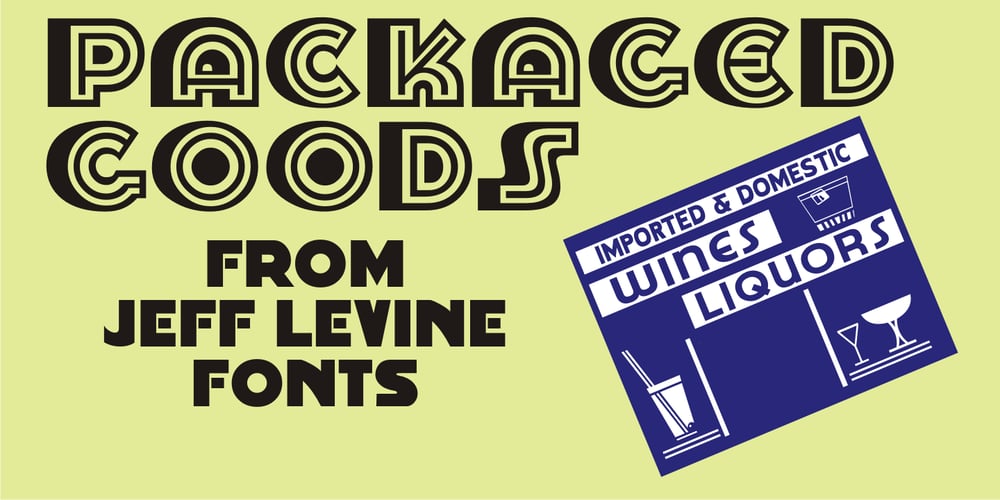
Packaged Goods JNL Font Family was designed by Jeff Levine and published by Jeff Levine. Packaged Goods JNL contains 1 styles and family package options. A vintage matchbook advertising the New York Liquor Mart – oddly enough, located in Chicago, Illinois – featured a pen and ink line drawing of the store’s exterior. The Art Deco lettering on the mansard was portrayed with a straight left shadow (as opposed to drop cast or extruded), making for an interesting multi-line typeface design. This is now digitally available as Packaged Goods JNL.